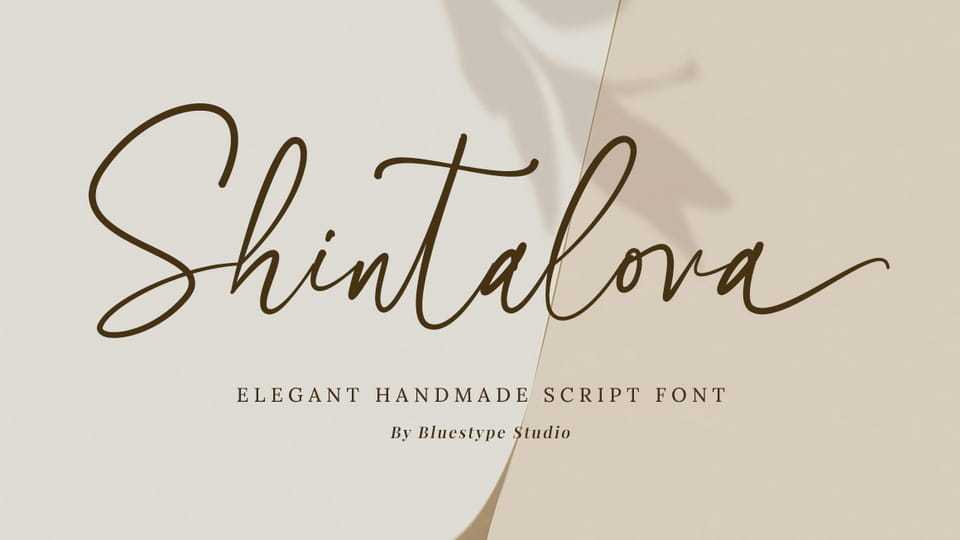
Download Shintalova font, an elegant script typeface designed to deliver a refined, luxurious, and timeless look featuring smooth curves and graceful strokes.